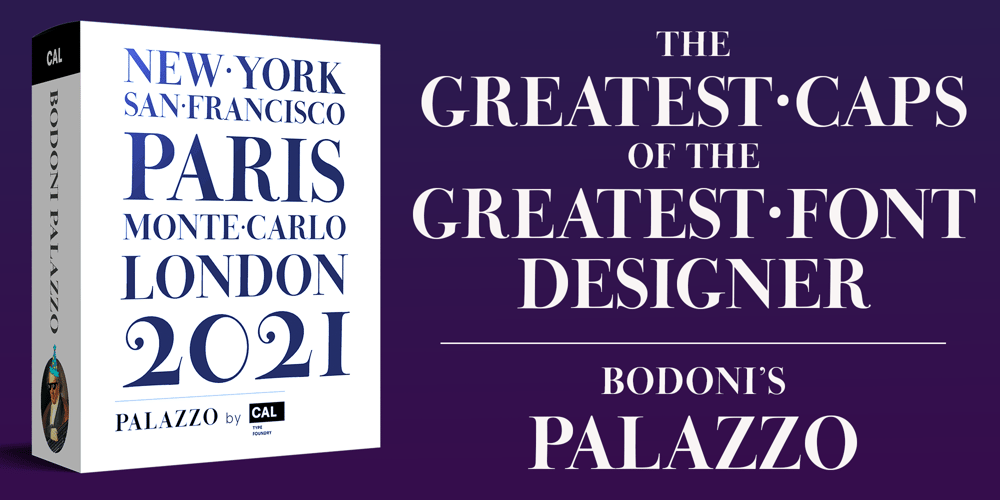
CAL Bodoni Palazzo
CAL Bodoni Palazzo font
CAL Bodoni Palazzo Font Family was designed by Giambattista Bodoni, Dave Lawrence, CAL Origins Design Team and published by California Type Foundry. CAL Bodoni Palazzo contains 1 styles and family package options. The Greatest Caps Of The Greatest Font DesignerBodoni’s Most Beautiful Display Caps, Finally Available in DigitalThis font is the largest display caps that Bodoni ever made, painstakingly handcarved and now digitized to wow in any situation. It is one of the most beautiful fonts for whenever you need a stunning all caps display. The obvious and easy choice over tired standards like Trajan, Palazzo will be a highlight in your font collection.Bodoni Palazzo was updated in 2021 to include Small Caps and other new features. Previously only included the “old style” figures (top); Now with lining figures to better match all caps, and small caps numbers to match the small caps.CAL Bodoni Palazzo is a member of our Origin Series. Origin Fonts are designed to be true to the original designer’s intentions and fonts. Our Bodoni origin fonts ARE Bodoni fonts, not imitations or interpretations. They were drawn by Bodoni, our team just expanded it for modern use.